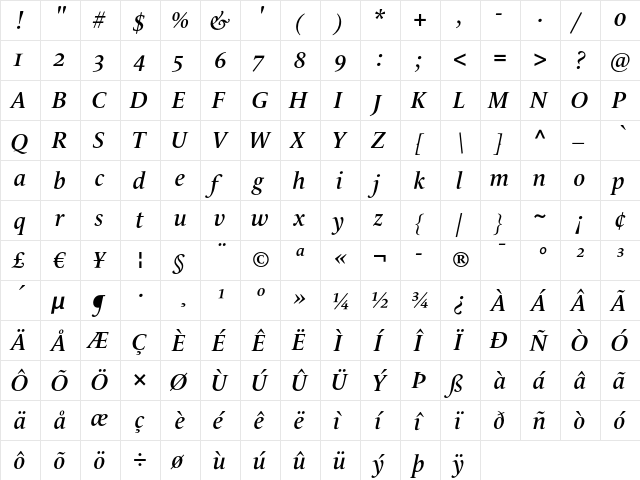
LeMonde Livre OsF SemiBoldItalic
Design Context for LeMonde Livre OsF Typeface
LeMonde Livre OsF is a composed and adaptable typeface that performs quietly and consistently across a wide range of design contexts. Its italic angle brings a sense of urgency and motion to the letterforms. The heavy weight commands attention and anchors typographic hierarchies.
Pro Tip: Use LeMonde Livre OsF for emphasis, pull quotes, and subheadings where its slanted energy can add rhythm to the layout.